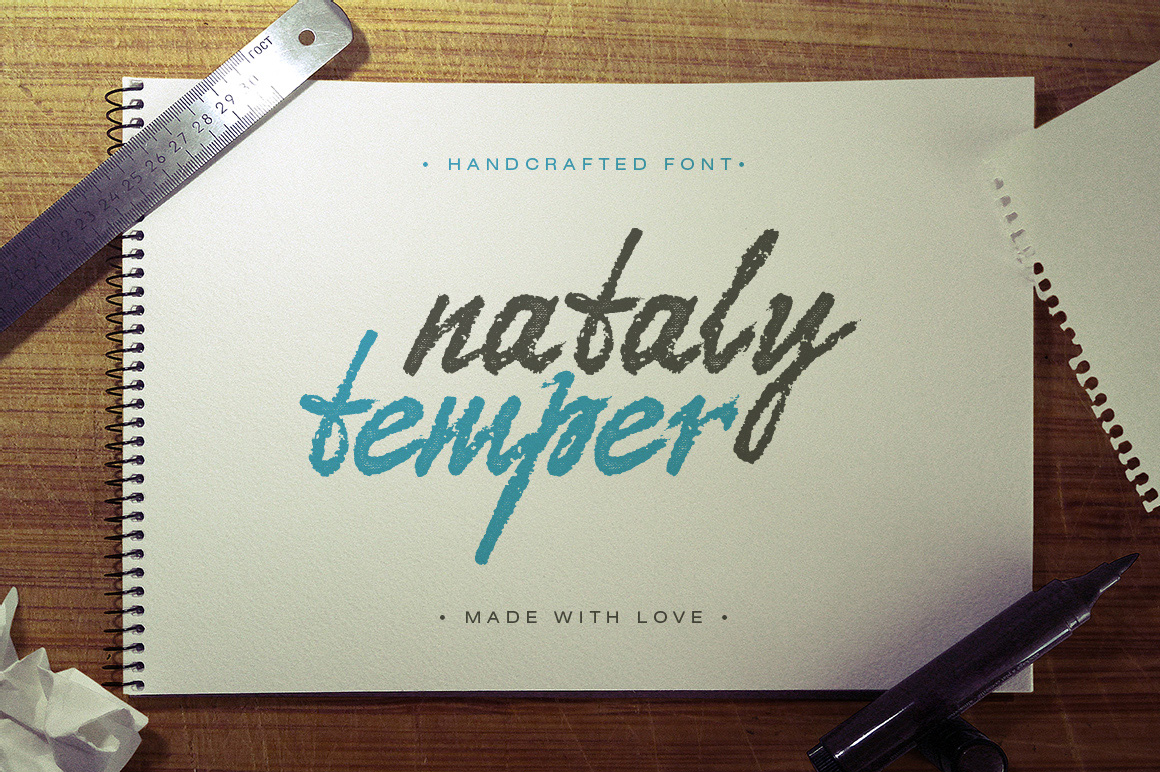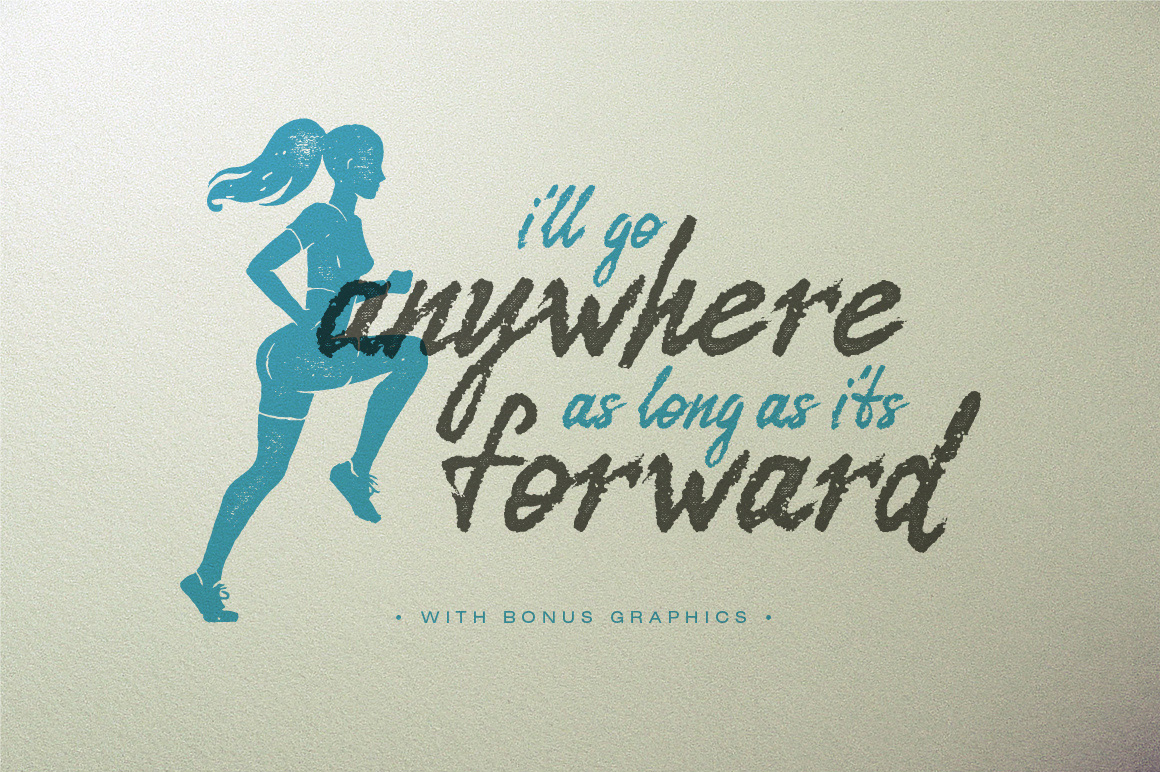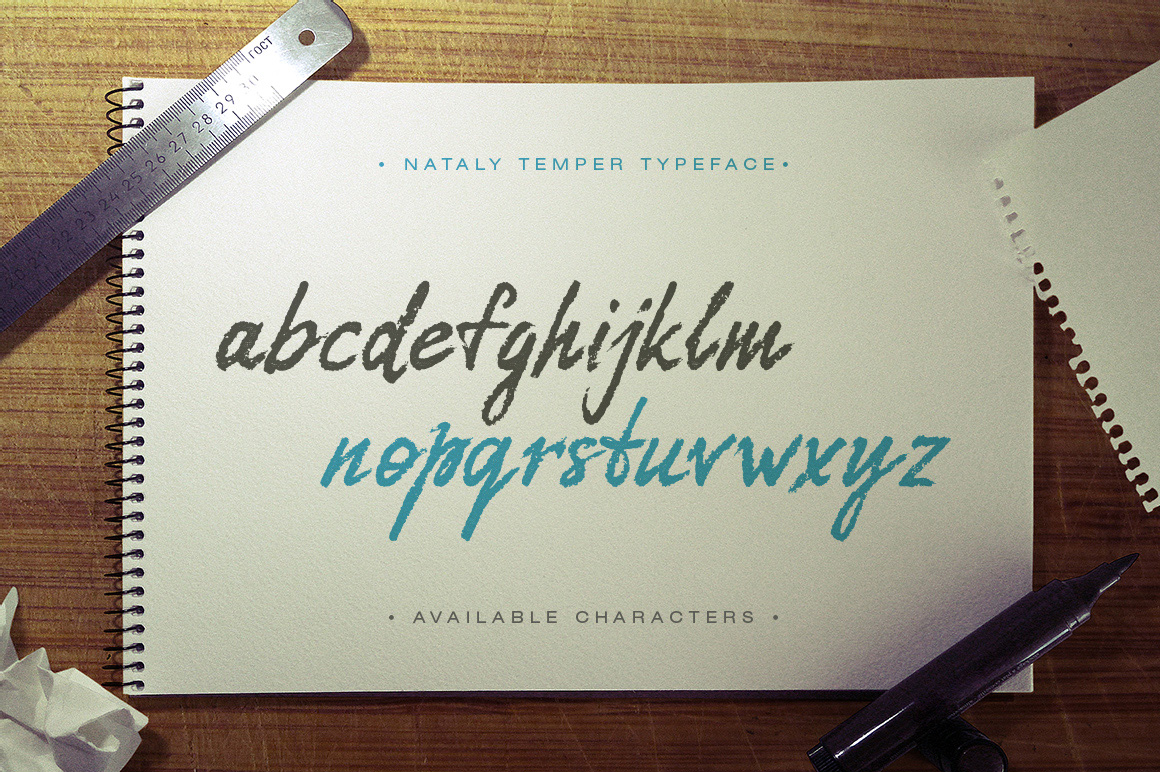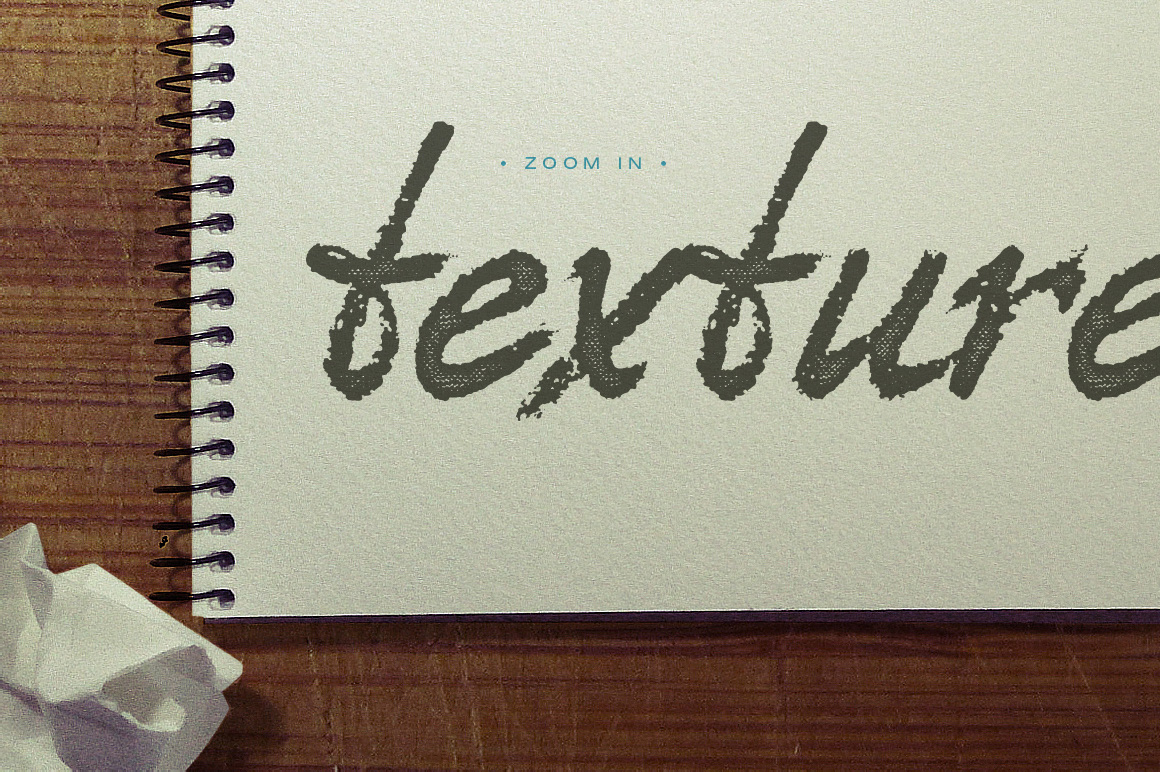
HomeScript FontsNataly Temper Font Script Fonts Nataly Temper Font FacebookXPinterestWhatsApp Nataly Temper Font Poster 2 Nataly Temper Font Poster 3 Nataly Temper Font Poster 4 About Nataly Temper Font This typeface has a natural looking dirty texture. DOWNLOAD NOW People also explored Wintersnow Font Maria Rose Font Treasure Font Darling Banana Font Hiyagh Ahey Font Billagoos Font Manopo Font Clubing Font 314 0 TagsNataly Temper Font Previous articleRusted Brushpen FontNext articleGolden Brush Font LEAVE A REPLY Cancel reply Comment: Please enter your comment! Name:* Please enter your name here Email:* You have entered an incorrect email address! Please enter your email address here Website: Save my name, email, and website in this browser for the next time I comment. Personal Use Free Angelitta Personal Use Free Read more about this font Catandra Script Personal Use Free Read more about this font Bintang Noela Personal Use Free Read more about this font Legacy Personal Use Free Read more about this font BLOG Free Fonts Risk: Why Free Fonts Can Be Dangerous for Designers Free Fonts Risk: Why Free Fonts Can Be Dangerous for Designers Using free fonts is a common practice in web and graphic design. However, the... Top 10 Handwritten Fonts That Elevate Your Designs Using Fonts in Digital Marketing: Tips to Strengthen Your Brand Identity Modern Sans-Serif Fonts That Brands Love in 2025